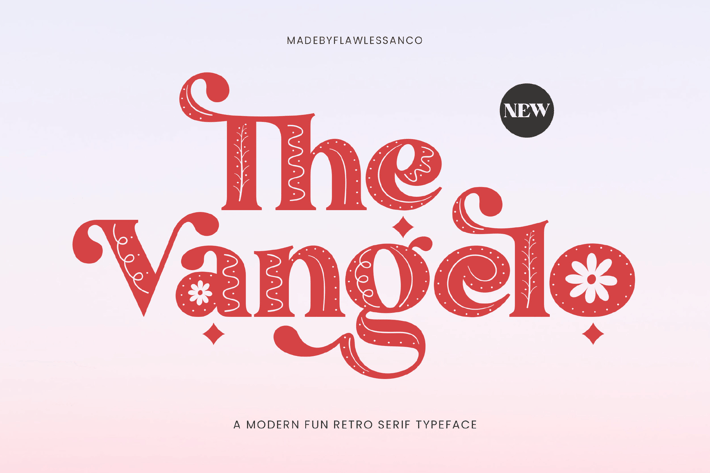
The Vangelo Modern Fun Retro Serif Font
Flawlessandco
Introducing "The Vangelo" – A Modern Fun Retro Serif Typeface. Embrace the charm of the past with a contemporary twist through "The Vangelo," a font that effortlessly marries retro aesthetics with modern flair. This font has two distinctive styles – Regular and Fun — adorned with patterns in fun styles that add an extra layer of delight to your designs. This font is suitable for any graphic design such as branding materials, t-shirts, business, posters, photography, and others.